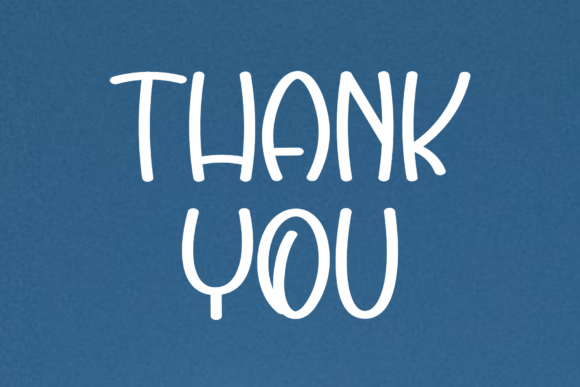
The Perfect Match: Discovering the Charming Hocky Font
Have you ever stumbled upon a font that makes you feel like you’ve found a long-lost treasure? For designers, it’s a moment of pure excitement – the thrill of discovering a new font that speaks to your creative soul. For me, that moment came when I first laid eyes on the Hocky Font. Its whimsical charm and effortless elegance immediately caught my attention, and I knew I had to learn more.
The Hocky Font is a beautiful handwritten font that exudes a sense of freshness and casual sophistication. Its fluid strokes and organic lines create a laid-back vibe that’s perfect for a variety of design projects. Whether you’re working on branding, invitations, or social media graphics, the Hocky Font adds a touch of warmth and personality that’s hard to resist.
Hocky Font Key Features
- Unique Characteristics: Hocky Font features a unique blend of modern and vintage elements, with intricate details and a wide range of expressive characters.
- Font Style and Weight: Hocky Font is available in multiple styles and weights, including regular, bold, italic, and bold-italic, allowing for a high degree of customization.
- Scalability: Hocky Font is designed to be highly scalable, making it suitable for use in a wide range of applications, from small text to large display typography.
Hockey Font Review
As a designer, I was excited to dive into the Hockey Font and see what it had to offer. Here’s my honest review.
- ✨ Unique and sporty vibe: Hockey Font has a distinct, energetic feel that’s perfect for sports-related projects or anything that needs a bit of an edge.
- ✨ Good legibility: Despite its bold appearance, the font is surprisingly easy to read, making it a great choice for headings and titles.
- ⚠️ Limited font variations: The Hockey Font comes in only a few styles, which can make it feel a bit restrictive for more complex designs.
- ⚠️ Not ideal for body text: While the font is great for headings, it’s not the best choice for large blocks of body text due to its bold, attention-grabbing nature.
Overall, I think the Hockey Font is a great choice for designers who need a bold, energetic font for specific projects. However, its limitations should be taken into account when making a decision. With a bit of creativity and experimentation, you can make this font shine in the right contexts.
Hocky Font: A Practical Application Guide
To get the most out of Hocky Font, use it for:
- Creating eye-catching headlines and titles.
- Adding a unique touch to your branding and marketing materials.
- Designing posters, flyers, and other promotional materials.
For best results, pair Hocky Font with clean and simple backgrounds to let the font be the focal point.
Alternatives to “Hocky Font” for Designers
Fontin is a sans-serif typeface that is highly legible and works well for body text. It is a great choice for publications and websites that require a clean and modern look.
Compared to Hocky Font, Fontin has a more traditional sans-serif feel and lacks the distinctive rounded terminals of Hocky Font.
Lato is a modern sans-serif typeface that is highly versatile and works well for a variety of applications, from body text to display headings.
Lato is a more modern and sleek alternative to Hocky Font, with a more angular and geometric feel.
Arimo is a sans-serif typeface that is highly legible and works well for body text. It is a great choice for publications and websites that require a clean and modern look.
Arimo is a more conservative alternative to Hocky Font, with a more traditional sans-serif feel and a focus on readability.
Montserrat is a sans-serif typeface that is highly versatile and works well for a variety of applications, from body text to display headings.
Montserrat is a more geometric and modern alternative to Hocky Font, with a focus on sharp angles and clean lines.
Creative Project Ideas Using Hocky Font
Project 1: Winter Wonderland Sign
A fun and festive sign to welcome guests to a winter-themed party or event.